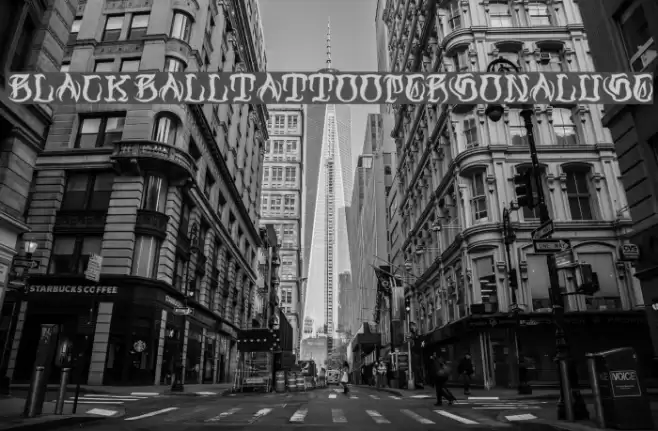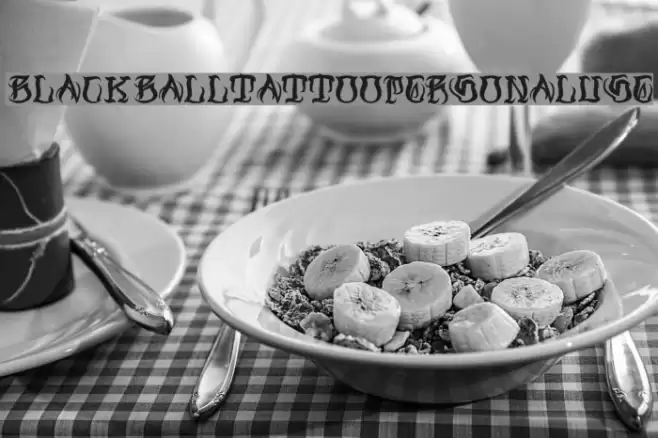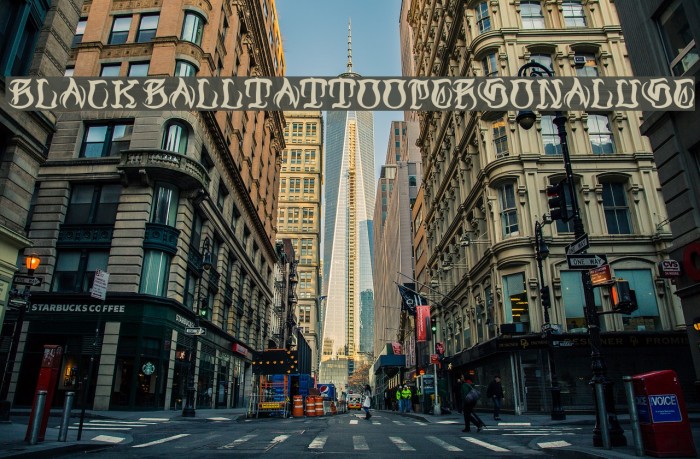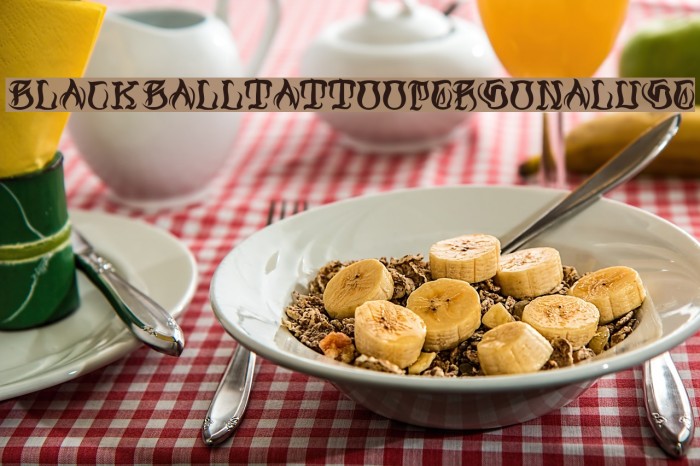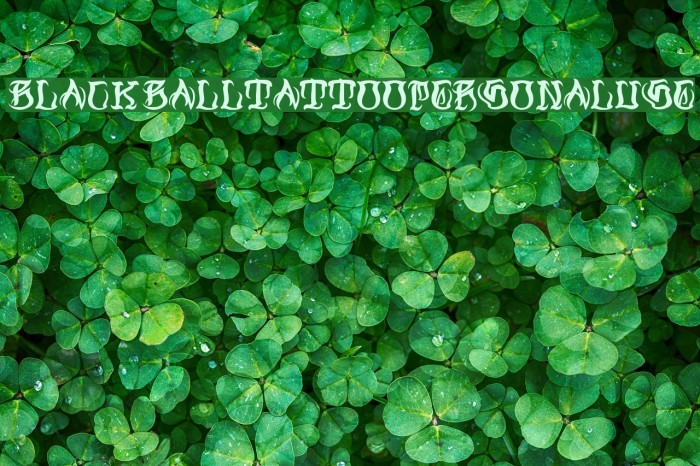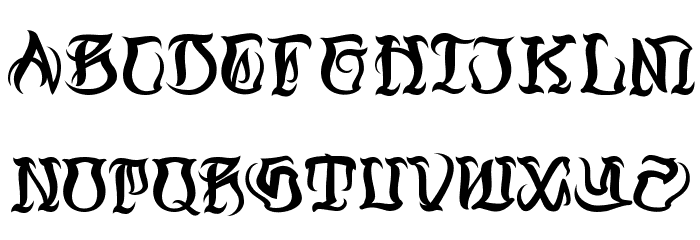
Black Ball Tattoo Personal Use Font
Black Ball Tattoo Personal Use Description
This font features a bold and intricate design, reminiscent of traditional tattoo art. The characters are stylized with sharp, angular edges and dramatic curves, creating a sense of movement and flair. The uppercase and lowercase letters maintain a consistent aesthetic, with each character exhibiting unique flourishes that add to the overall decorative appeal. The numbers and special characters follow the same ornate style, ensuring a cohesive look across all text elements. This font is ideal for projects that require a striking and artistic touch, such as tattoo designs, posters, or branding materials that aim to capture attention and convey a sense of boldness and creativity.
A bold, decorative font with intricate, tattoo-inspired designs from Uncategorized fonts.
- Proposed Projects: Ideal for tattoo designs, artistic posters, branding, and creative projects requiring a bold statement.
- Use Case: Logos, Headlines, Artistic Designs